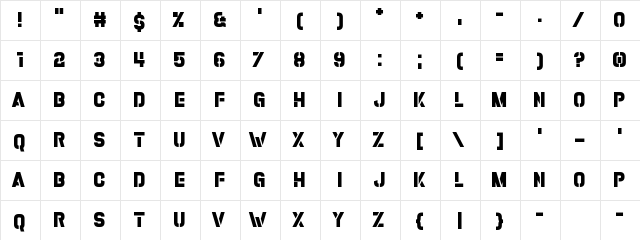
Army Buster Regular
Design Context for Army Buster Typeface
Army Buster has the no-nonsense character of military stencilling and tactical signage, projecting authority and directness.
Designed for tactical branding, military-inspired apparel, action game UI, and utility-focused signage.
Pro Tip: Use Army Buster at medium-to-large sizes where its utilitarian structure can be appreciated — the character detail gets lost at small sizes.